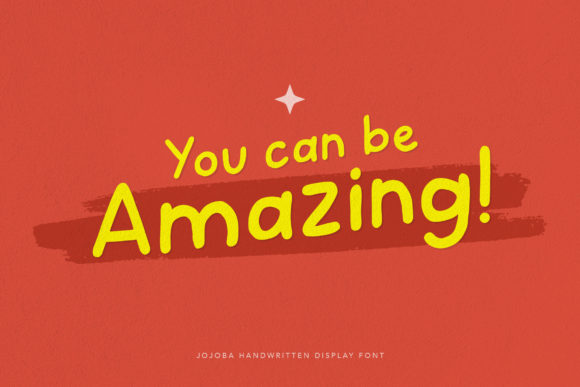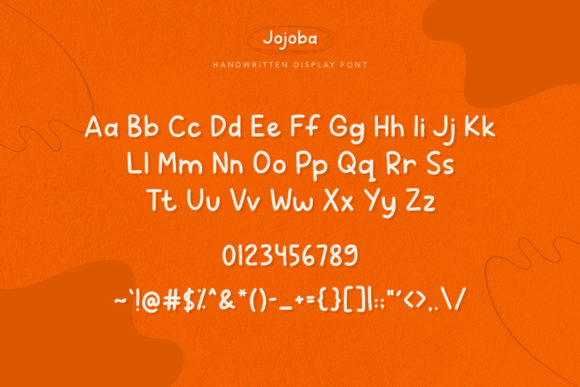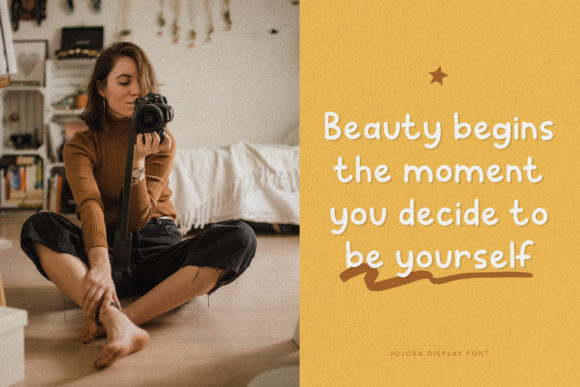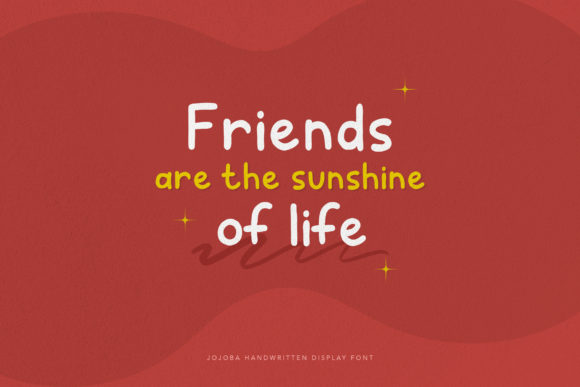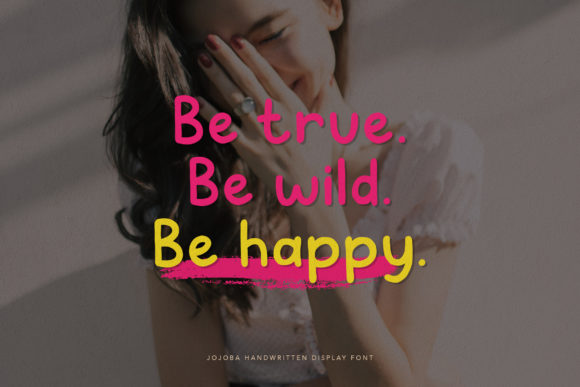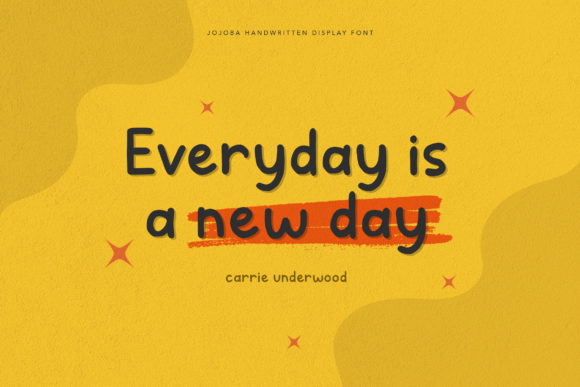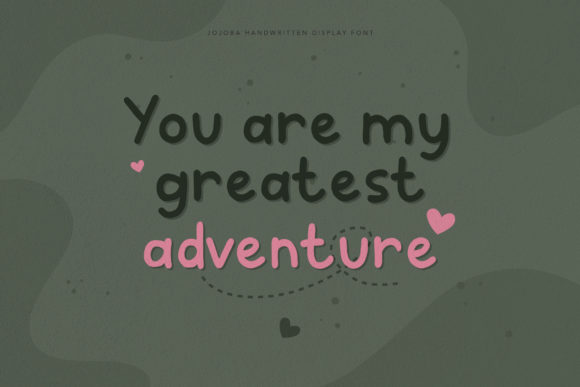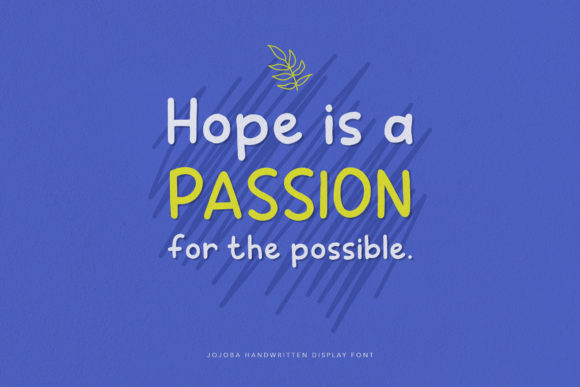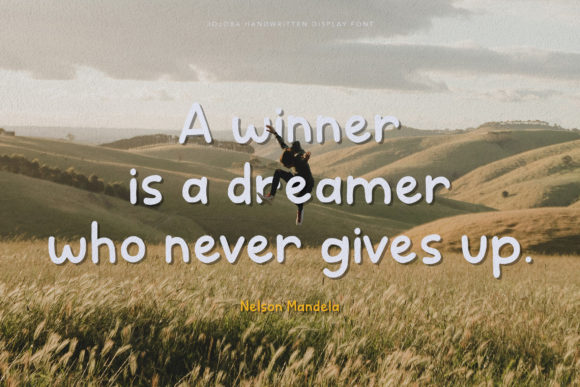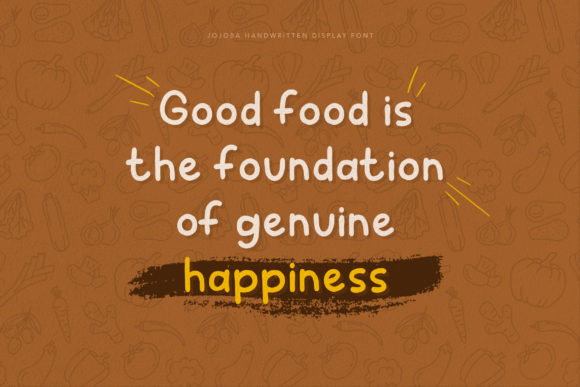
Jojoba Font
About Jojoba Font
Introducing Jojoba, a bold and cute handwritten font that combines playfulness with a touch of minimalism. With its charming and distinctive style, Jojoba is perfect for adding a fun and lighthearted vibe to your designs.
The bold strokes and clean lines of Jojoba make it stand out, capturing attention and bringing a sense of energy to your text. Whether you’re working on a poster, logo, social media graphics, or any other project, this font will add a delightful and eye-catching element.
Jojoba’s cute and whimsical nature makes it versatile and suitable for various themes and applications. It can bring a sense of joy and friendliness to children’s books, greeting cards, party invitations, and playful branding projects. Its minimalist undertones also make it an excellent choice for modern and contemporary designs, adding a touch of simplicity and sophistication.
The characters in Jojoba are carefully crafted to maintain readability while still showcasing its unique charm. Each letter has its own personality, resulting in a cohesive and visually appealing overall look. Whether used in uppercase or lowercase, Jojoba maintains its distinctive style, allowing you to experiment and create a variety of design compositions.
With Jojoba, your creativity knows no bounds. You can mix and match uppercase and lowercase letters, add ligatures, and explore the range of additional glyphs and decorative elements. This font allows you to create personalized and customized designs that truly reflect your style and vision.
Embrace the bold and cute charm of Jojoba and let your imagination run wild. Add a playful and minimalist touch to your designs, capturing hearts and leaving a lasting impression. From fun and cheerful projects to sleek and modern designs, Jojoba will be your go-to font for adding that extra dose of character and style.
Get ready to make a statement with Jojoba and watch as your text comes to life with its bold and cute personality. Let your creativity soar and create designs that stand out from the crowd with this delightful handwritten font.